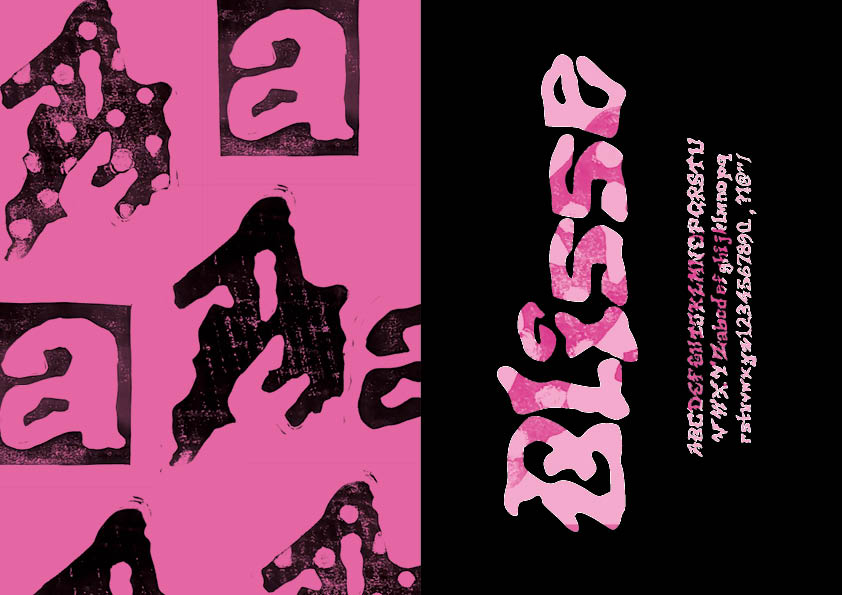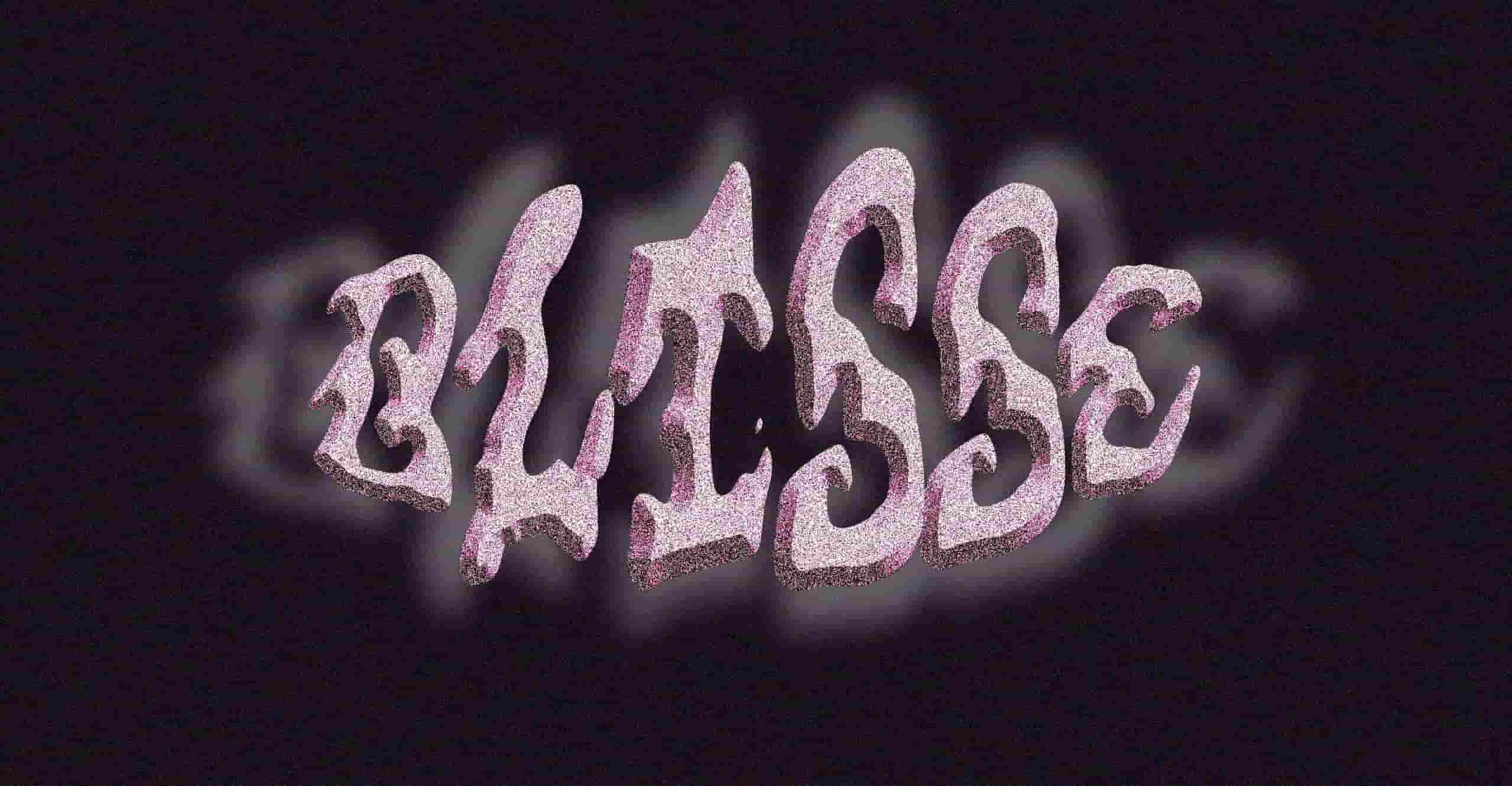
Blisse is a typeface that captures the essence of Bussey Building's bustling social environment. It mainly focuses on the retro atmosphere of the area, taking inspiration and form from the patterns of rips and markings on the alleyway walls. The design focuses on notions of self-expression found in the area left by different groups and the existence of a creative community and how this affects the social crowd of Peckham.